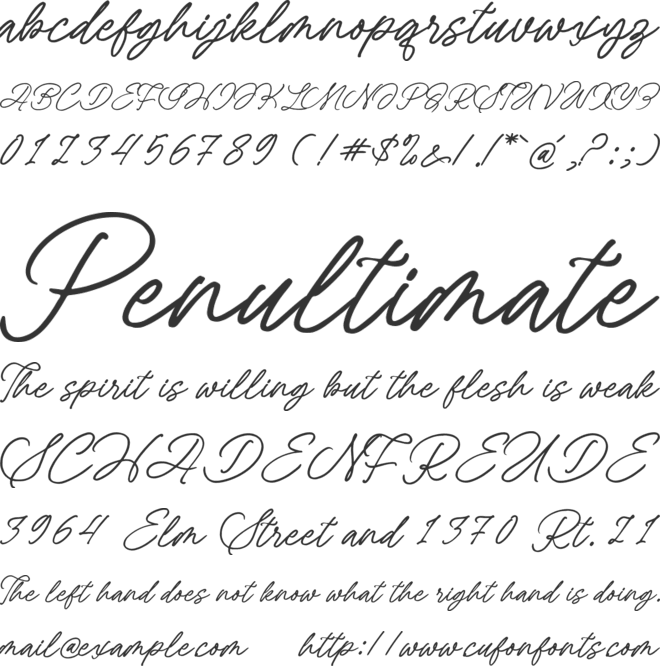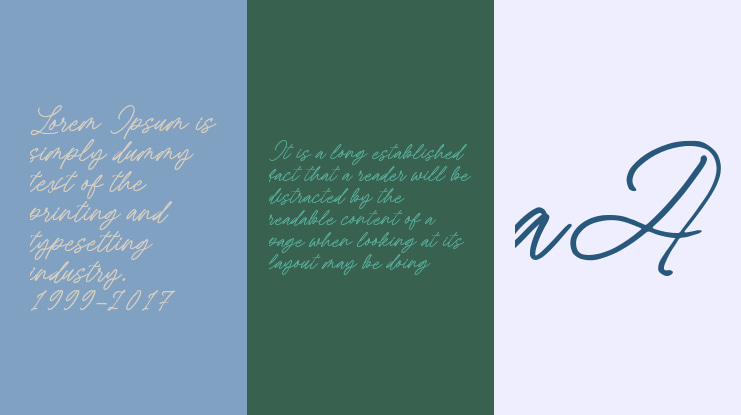
Arabella Rentharis - Elegant Calligraphy Script
Elevate your creative projects with the timeless sophistication of Arabella Rentharis - Elegant Calligraphy Script. This premium typography choice embodies a handcrafted aesthetic that balances fluid movement with structured grace. Designed for those who demand creative excellence, the font captures a luxurious atmosphere through its sweeping curves and organic flow, making it an essential tool for designers seeking a refined signature style.
Experience the unparalleled flexibility of a typeface built for global communication and artistic expression. With its extensive multilingual support, Arabella Rentharis - Elegant Calligraphy Script adapts seamlessly across global markets, making it incredibly versatile for international projects. This script font is enriched with 44 ligatures and 48 alternates, providing a wide array of customization options that ensure your headlines and logos remain unique and captivating.